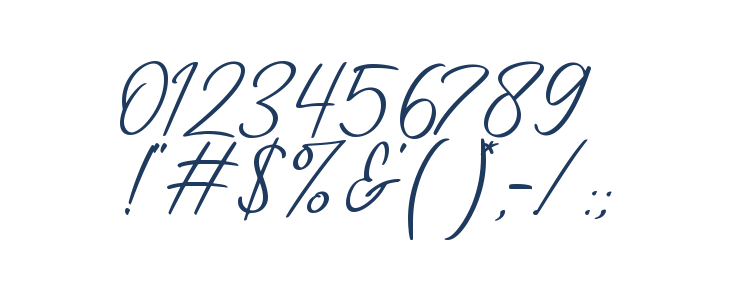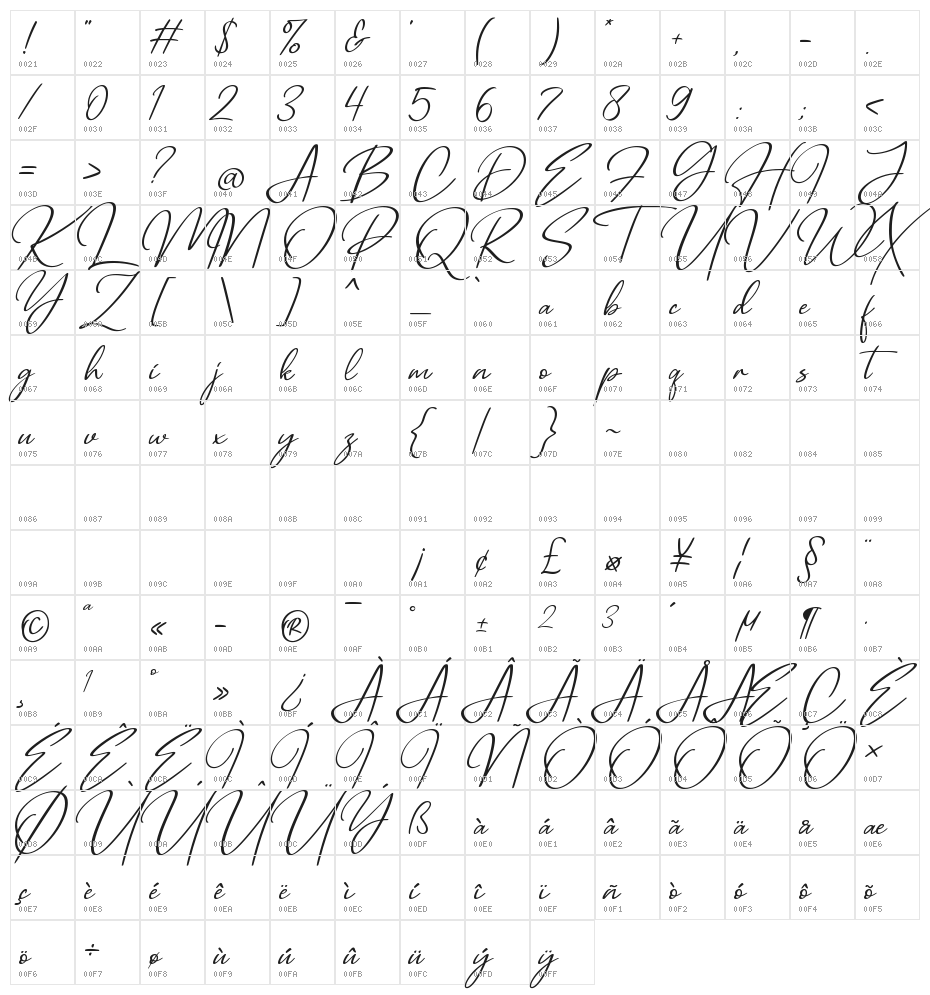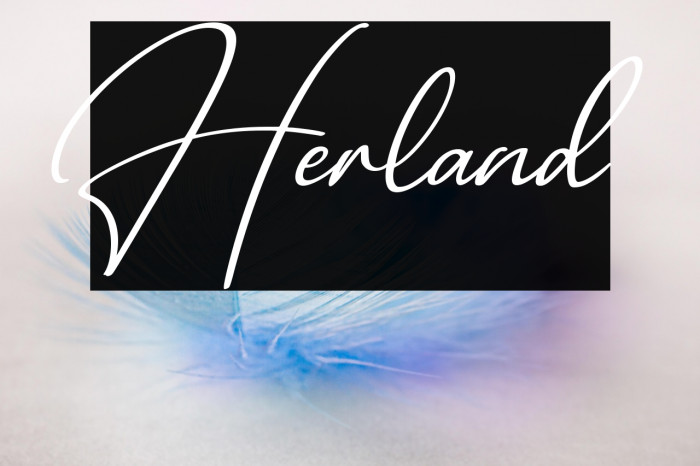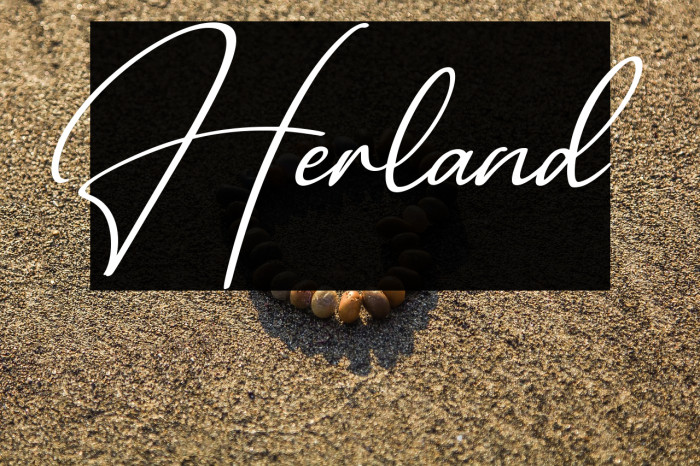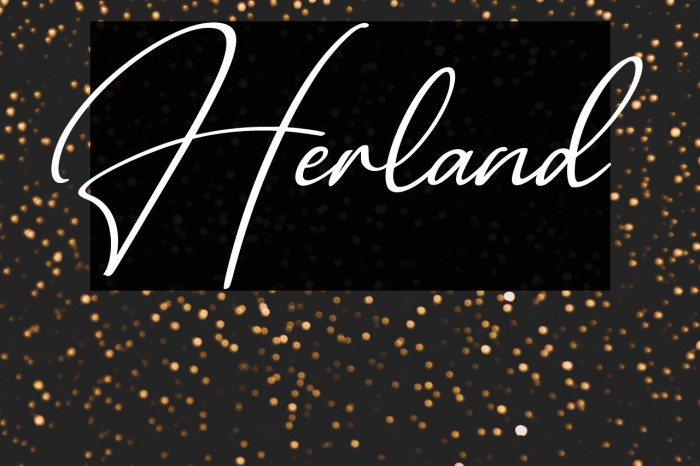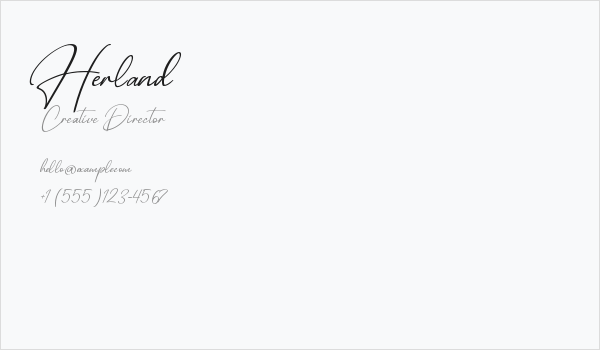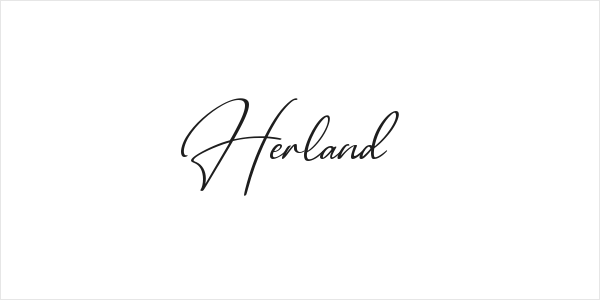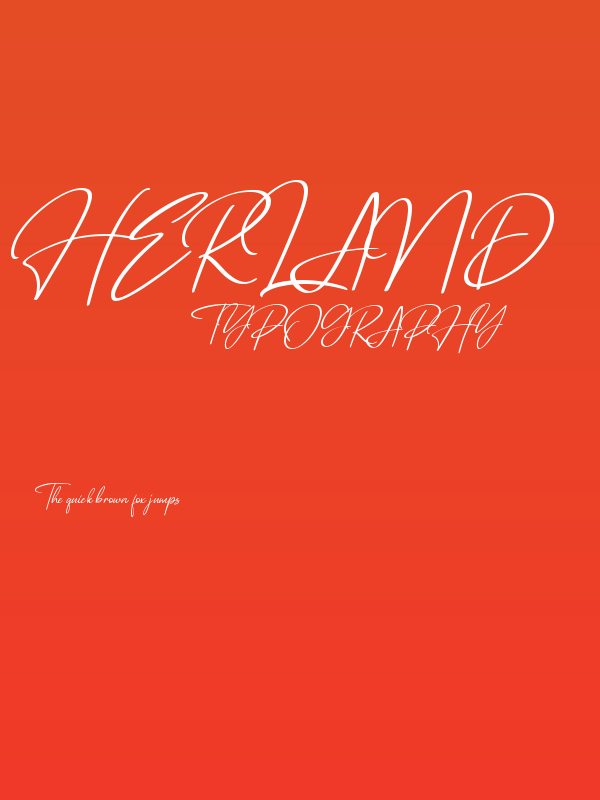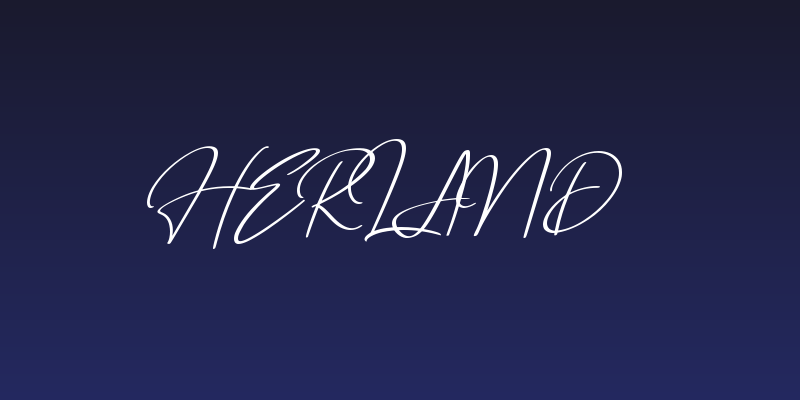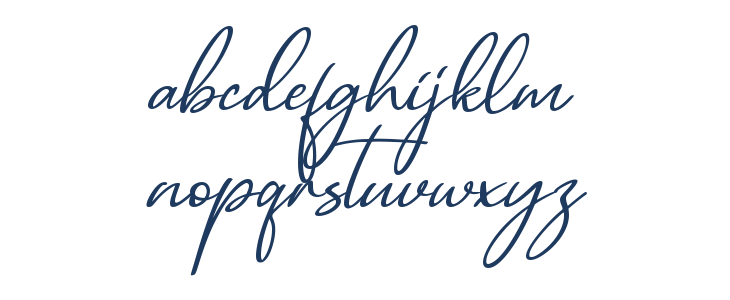
Herland Font
Herland Description
This elegant script font features a flowing, cursive style with a modern touch. The uppercase letters are tall and slender, with graceful loops and swirls that add a sense of sophistication. The lowercase letters maintain a consistent flow, connecting smoothly for a handwritten appearance. The numerals are stylish and complement the overall aesthetic, while the special characters are thoughtfully designed to match the script's elegance. This font exudes a sense of refinement and is perfect for projects that require a personal, yet polished touch.
| Proposed Projects | Ideal for wedding invitations, elegant branding, personal stationery, and upscale packaging. |